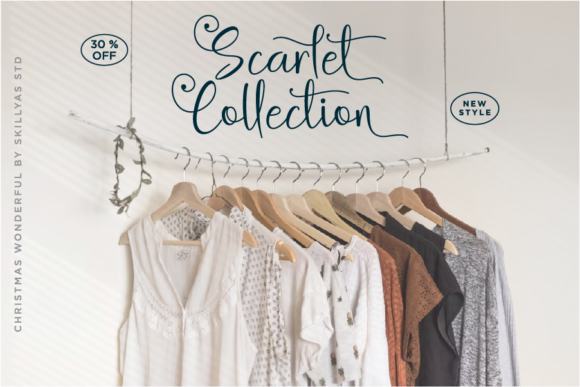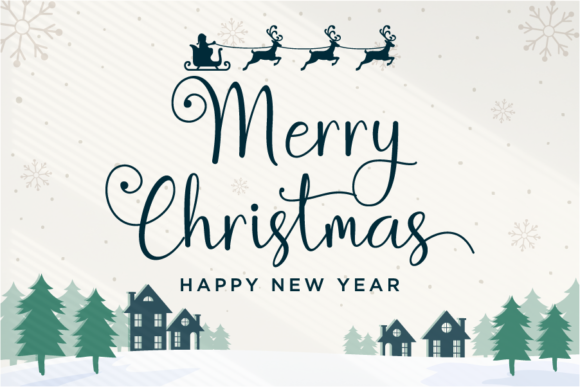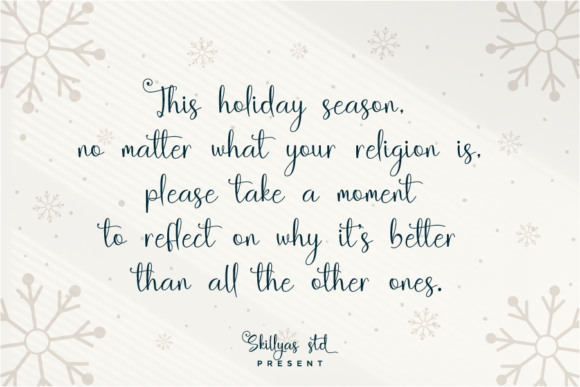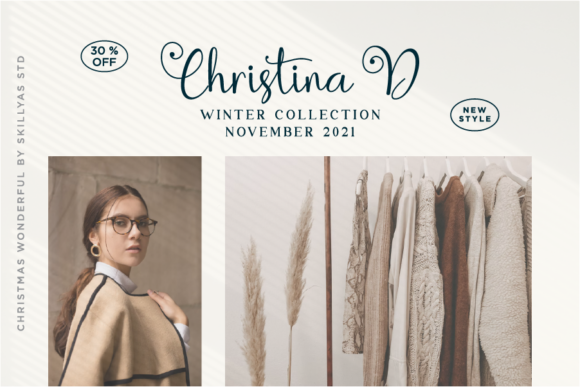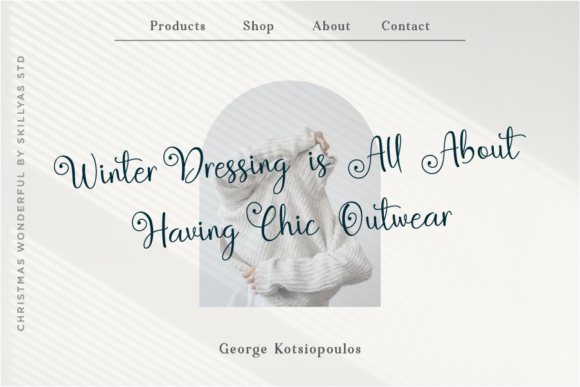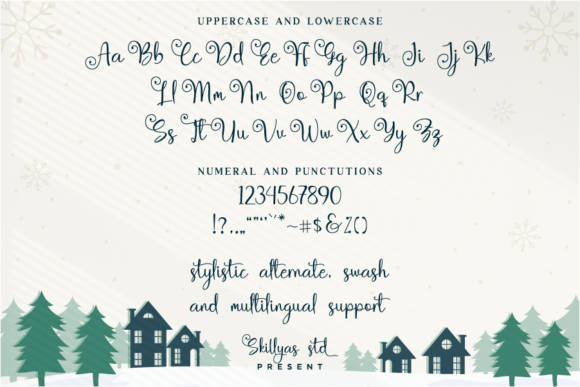
Introducing Christmas Wonderful Font: A Charming and Elegant Addition to Your Designs
Are you looking for a font that exudes charm and elegance? Do you want to add a touch of sophistication to your designs? Look no further than the Christmas Wonderful Font. This beautiful font is perfect for designers and crafters who want to create stunning wedding invitations, thank you cards, quotes, greeting cards, logos, business cards, and more.
What Makes Christmas Wonderful Font So Special?
Christmas Wonderful Font feels equally charming and elegant, making it an ideal choice for a variety of design projects. Its handwritten touch adds a personal and unique feel to any design, setting it apart from more traditional fonts. Whether you’re creating wedding invitations, greeting cards, or business cards, this font is sure to impress.
One of the best things about Christmas Wonderful Font is its versatility. It can be used for a wide range of design projects, including:
- Wedding invitations: Create beautiful and elegant wedding invitations that set the tone for the big day.
- Thank you cards: Express your gratitude with stylish and heartfelt thank you cards.
- Quotes: Add a touch of elegance to your favorite quotes and make them perfect for sharing on social media or displaying in your home.
- Greeting cards: Create stunning greeting cards for birthdays, holidays, and other special occasions.
- Logos: Use Christmas Wonderful Font to create a unique and memorable logo for your business or brand.
- Business cards: Stand out from the crowd with elegant and professional business cards.
Christmas Wonderful Font is PUA encoded, which means you can access all of the glyphs and swashes with ease. This makes it easy to customize your designs and add your own personal touch. With PUA encoding, you can:
- Access a wide range of glyphs and swashes to add variety to your designs.
- Easily customize your font to fit your design needs.
- Create unique and personalized designs that stand out from the crowd.
Why Designers and Crafters Love Christmas Wonderful Font
Designers and crafters love Christmas Wonderful Font for its unique combination of charm and elegance. Here are just a few reasons why:
- Unique and personalized designs: With Christmas Wonderful Font, you can create unique and personalized designs that reflect your style and personality.
- Elegant and sophisticated: This font adds a touch of elegance and sophistication to any design, making it perfect for special occasions and formal events.
- Easy to use: With PUA encoding, you can easily access all of the glyphs and swashes, making it easy to customize your designs.
If you’re looking for a font that adds a touch of charm and elegance to your designs, look no further than Christmas Wonderful Font. With its versatility, PUA encoding, and unique combination of charm and elegance, this font is perfect for designers and crafters who want to create stunning designs. Whether you’re creating wedding invitations, greeting cards, or business cards, Christmas Wonderful Font is sure to impress.